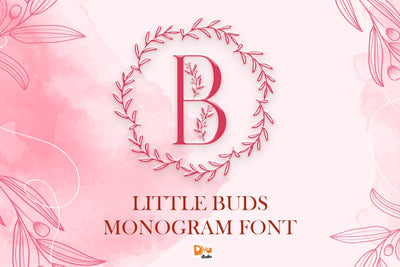
Little Buds Monogram Wreath
Little Buds Monogram Wreath – Delicate Floral-Inspired Typeface
Little Buds Monogram Wreath is a beautifully styled font that captures the grace of budding flowers and elegant curves, perfect for monograms, personal branding, event materials, and seasonal designs. This font blends natural whimsy with gentle structure, making it ideal for baby showers, weddings, feminine products, and charming DIY crafts.
Elegant Floral Inspiration: Designed with botanical nuance and graceful flair, echoing the softness of blooming buds.
Perfect for Monograms: Optimized letterforms for centered initials and decorative arrangements.
Gentle, Feminine Aesthetic: Adds warmth and style to invitations, packaging, logos, and social media content.
Complete Character Set: Includes uppercase, lowercase, numerals, punctuation, and multilingual support.